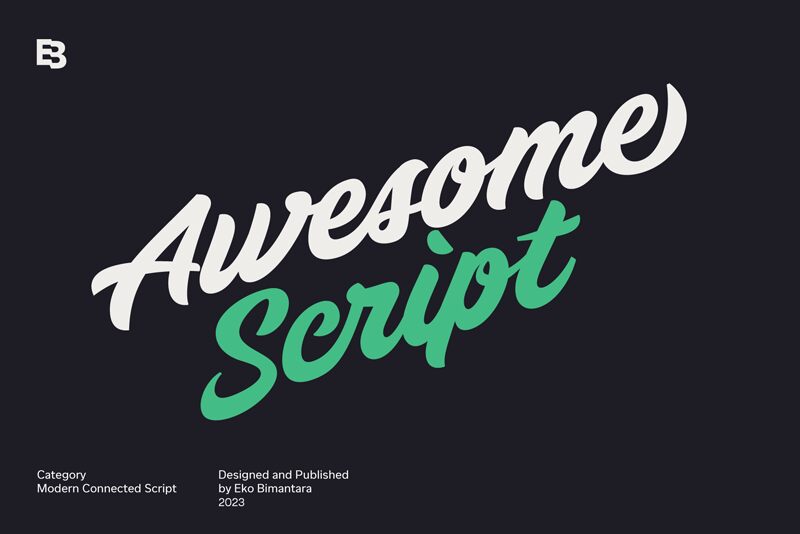
Awesome Script is a captivating font that exudes a bold, retro flair. Designed by Eko Bimantara, this brush-inspired script effortlessly blends vintage charm with a modern edge. Its powerful, sweeping strokes command attention, making it a standout choice for eye-catching headlines, impactful logos, and vintage-inspired branding.
The font's dynamic personality lends itself beautifully to a variety of creative applications, from rustic packaging designs to retro-themed marketing materials. Its bold, expressive nature makes it a versatile tool for designers seeking to add a touch of vintage allure or a sense of timeless elegance to their work. Whether used as a statement piece or seamlessly integrated into a cohesive design, Awesome Script is sure to elevate any project with its undeniable charisma and visual impact.